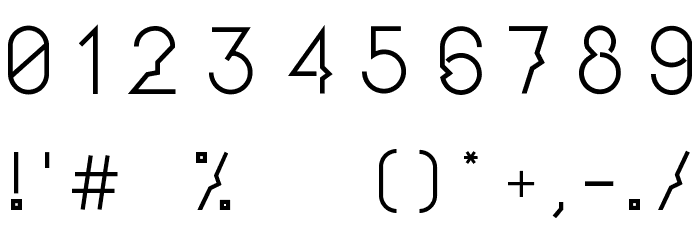
Mutawazi Bold Font
Mutawazi Bold Description
This font exhibits a modern and minimalist design with clean lines and geometric shapes. The characters are crafted with a uniform stroke width, giving it a sleek and contemporary appearance. The uppercase and lowercase letters maintain a consistent style, ensuring readability and visual harmony. The numerals and special characters are designed to complement the overall aesthetic, making it suitable for various applications. The font's simplicity and clarity make it ideal for digital and print media, where legibility is paramount.
A modern, minimalist font with clean lines and geometric shapes from Uncategorized fonts.
- Proposed Projects: Ideal for branding, web design, digital media, and print materials where a modern and clean aesthetic is desired.
- Use Case: Headlines, Logos, Digital Media